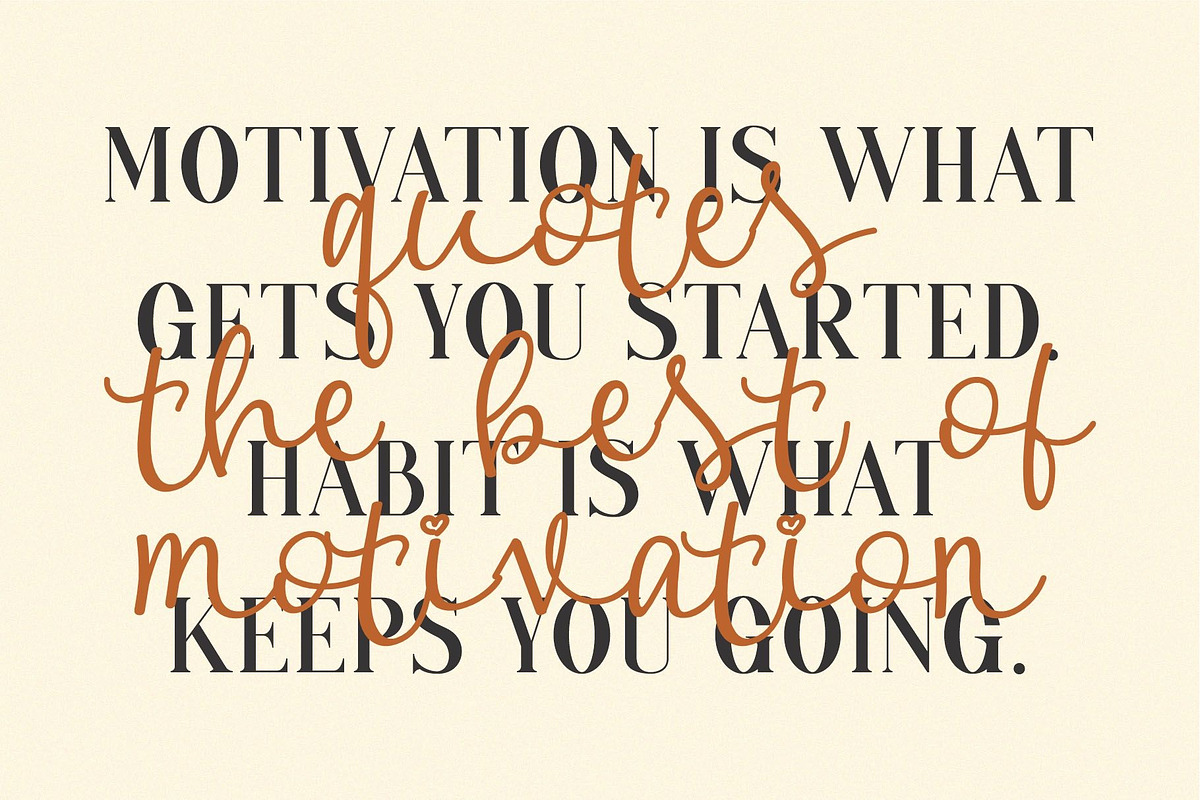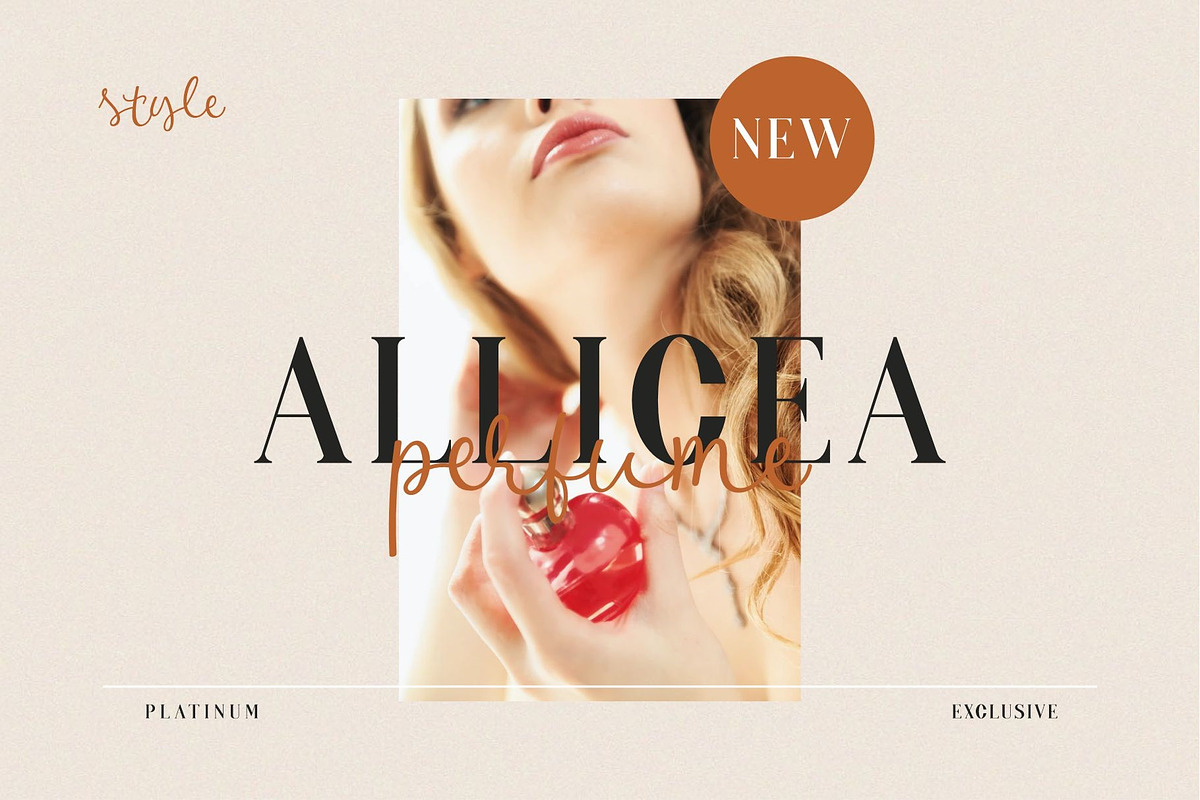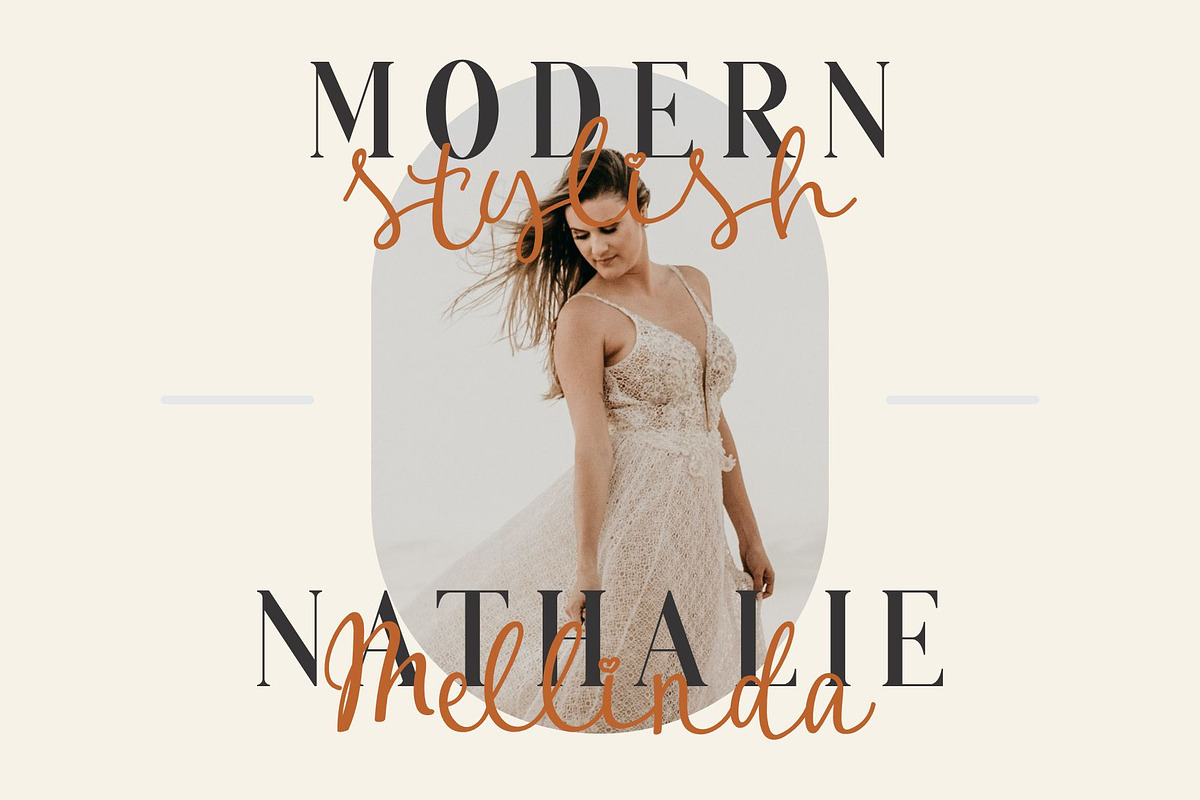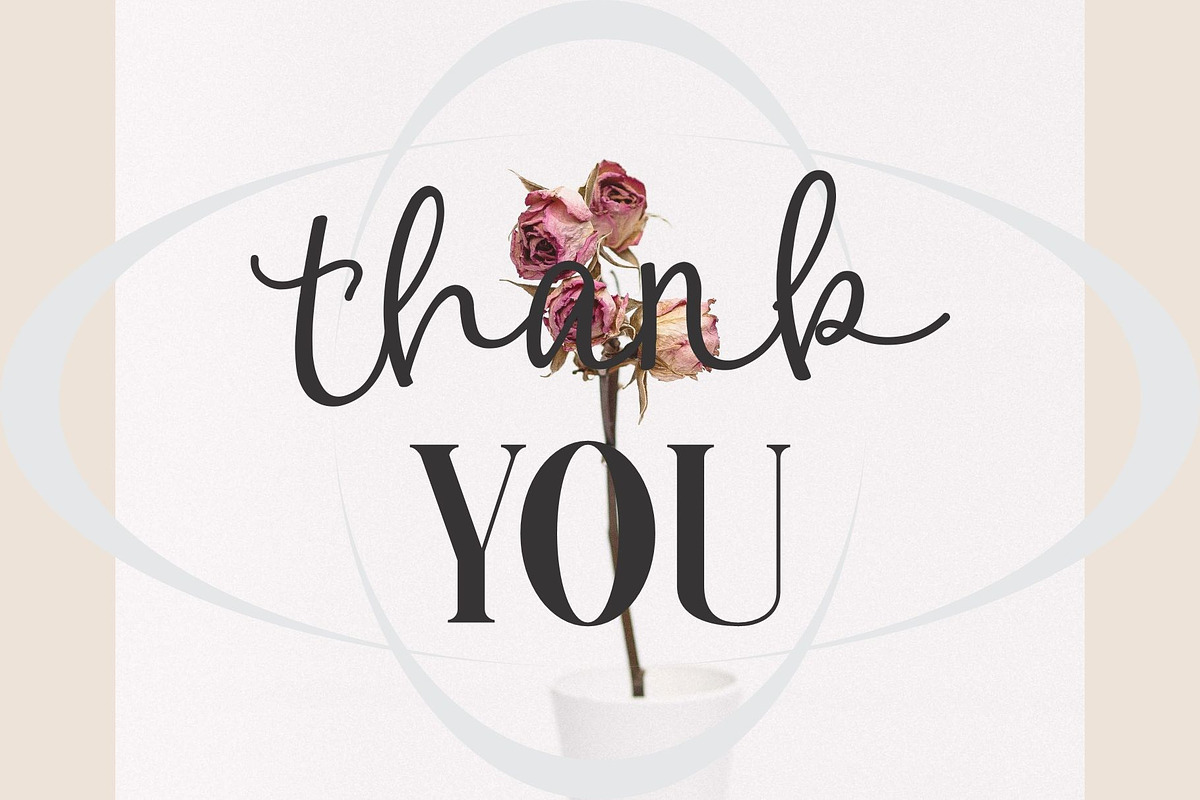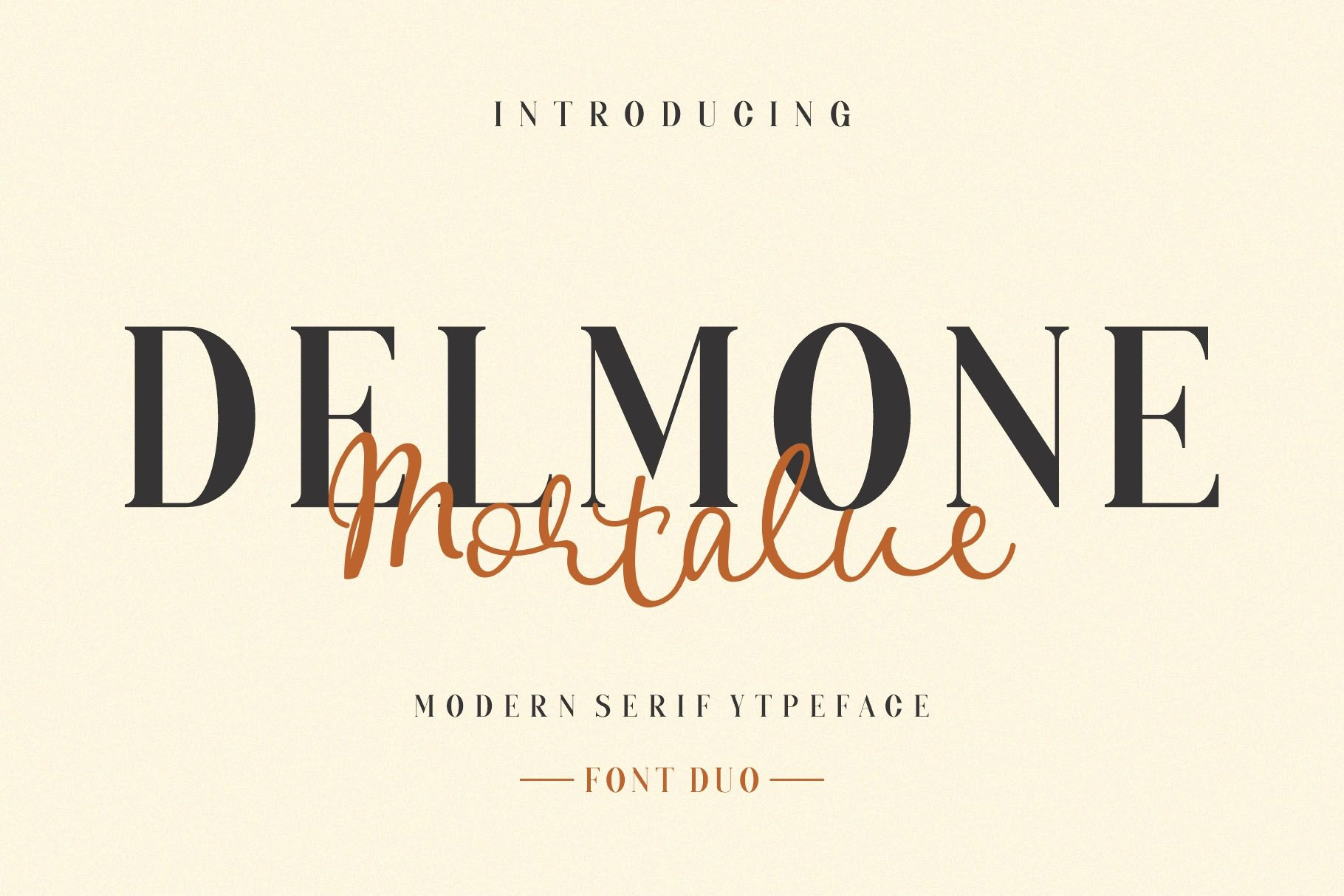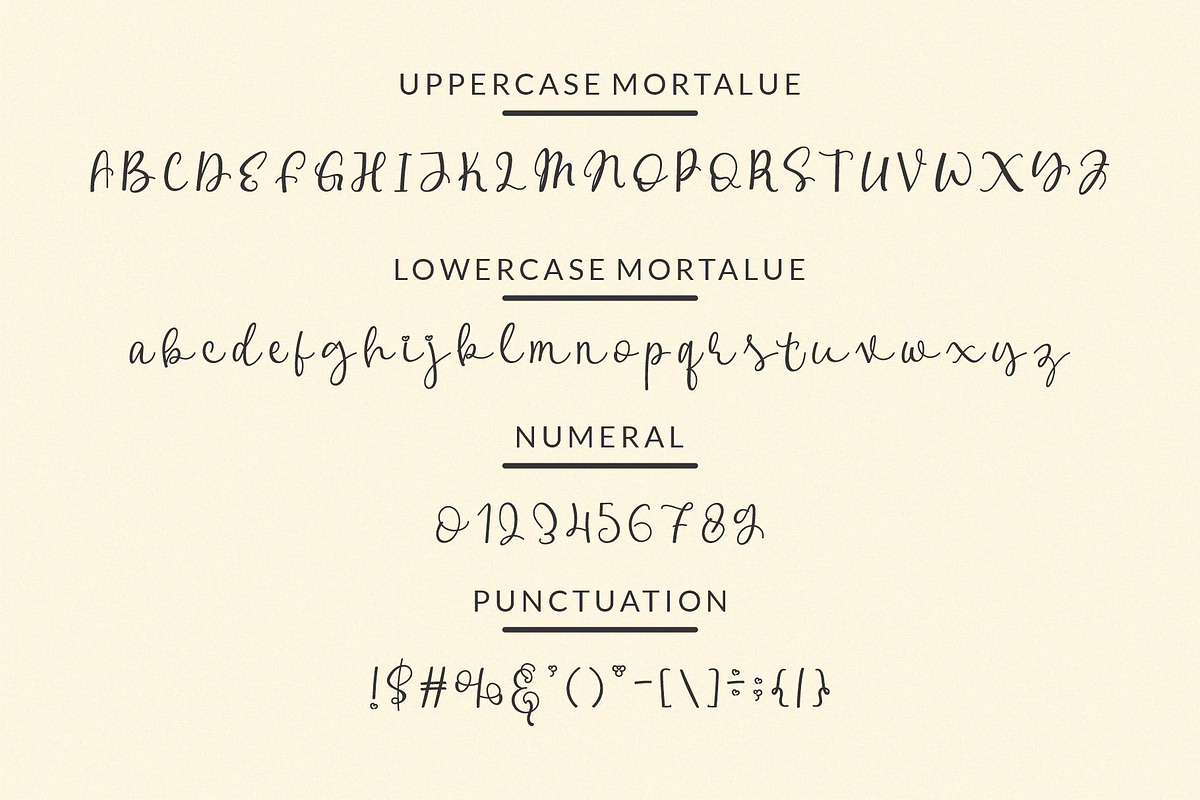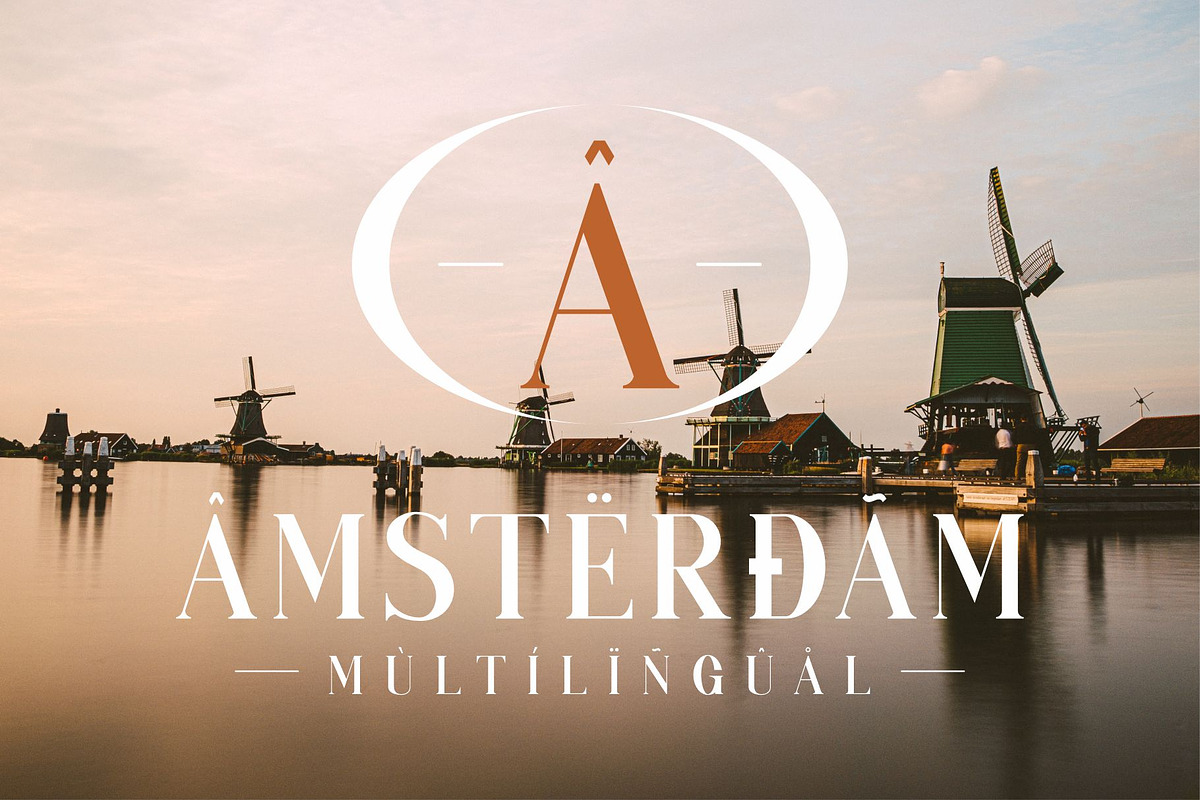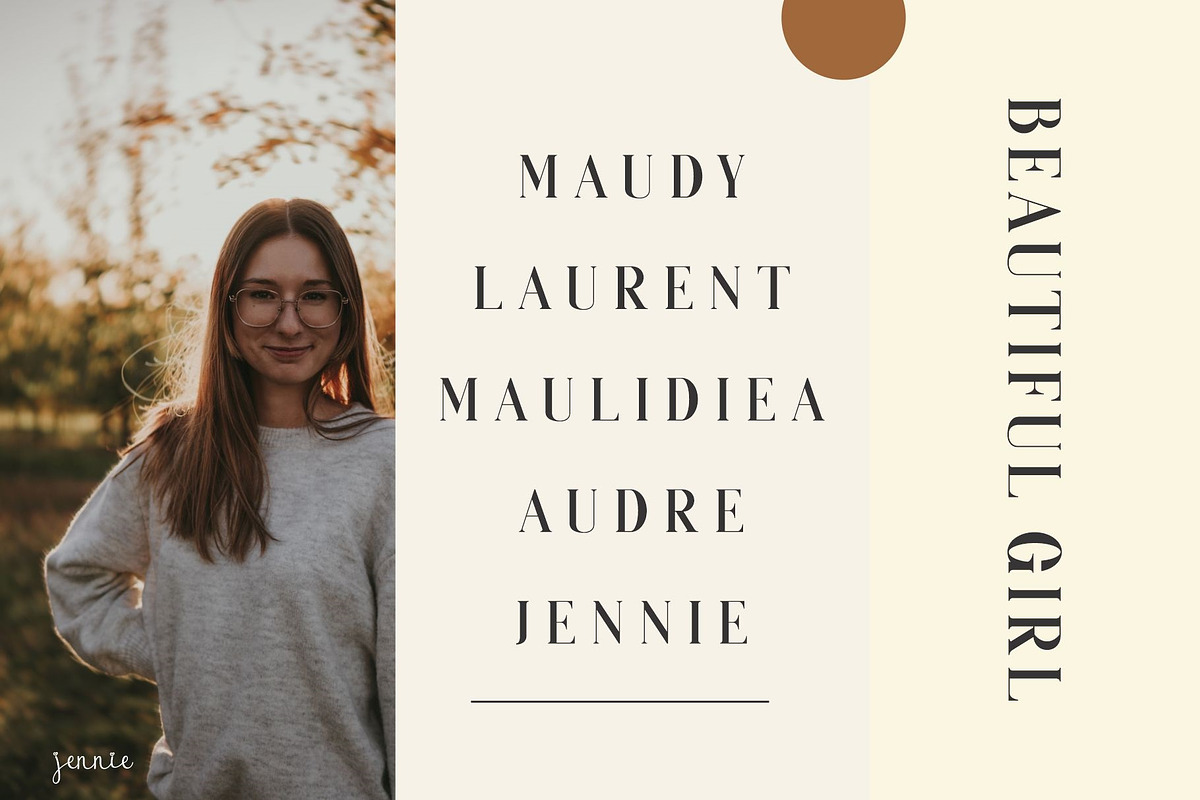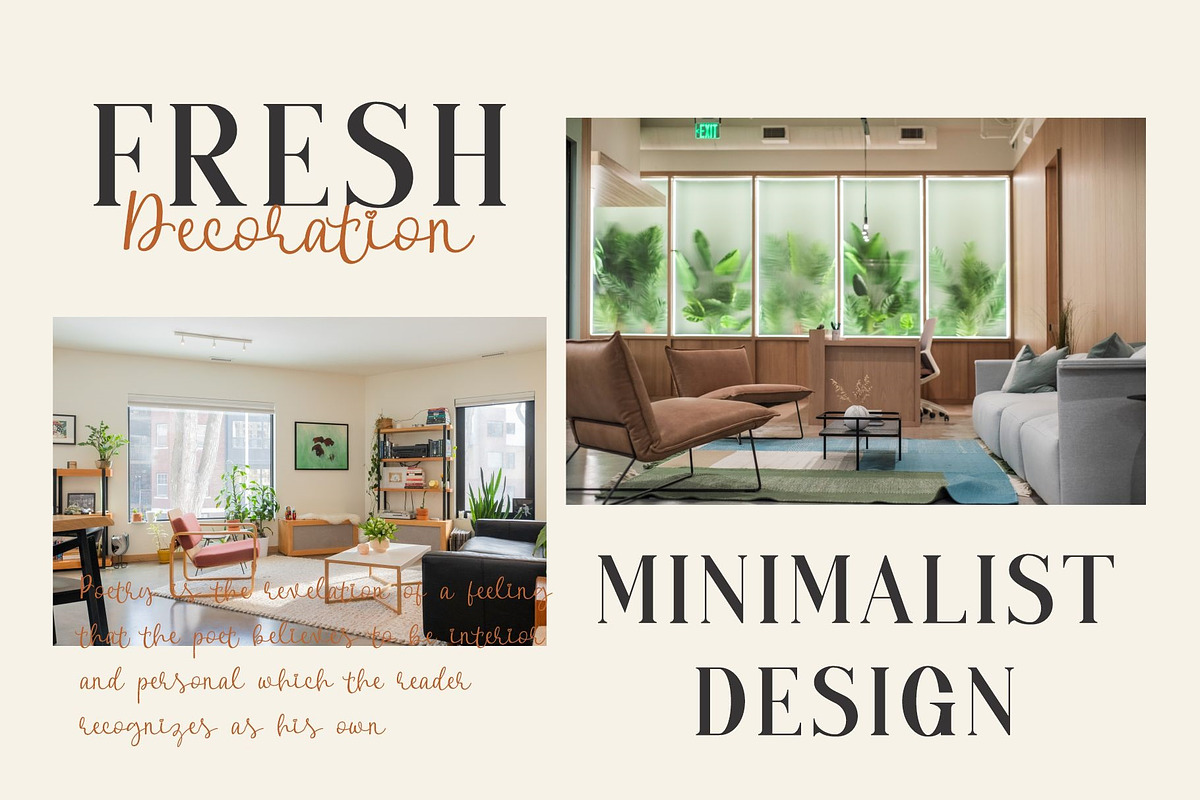
DELMONE & Mortalue Duo Font
DELMONE & Mortalue Signature - Stylish Duo Typeface Serif inspired by the famous minimalist logo perfect for the purposes of designing templates, brochures, videos, advertising branding, logos and more.